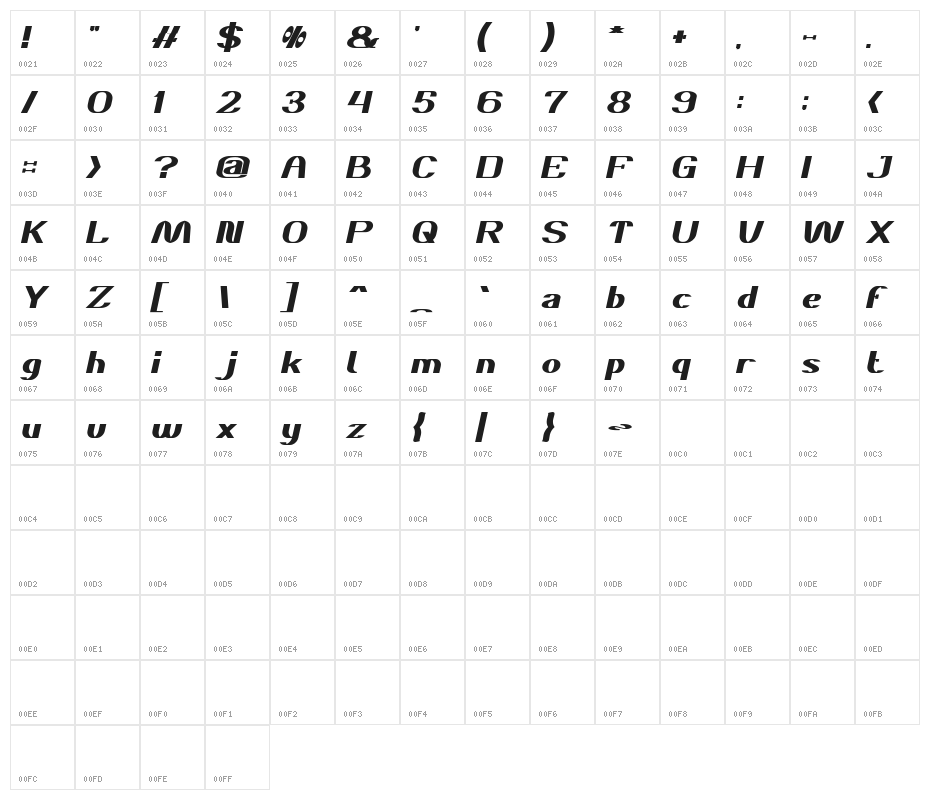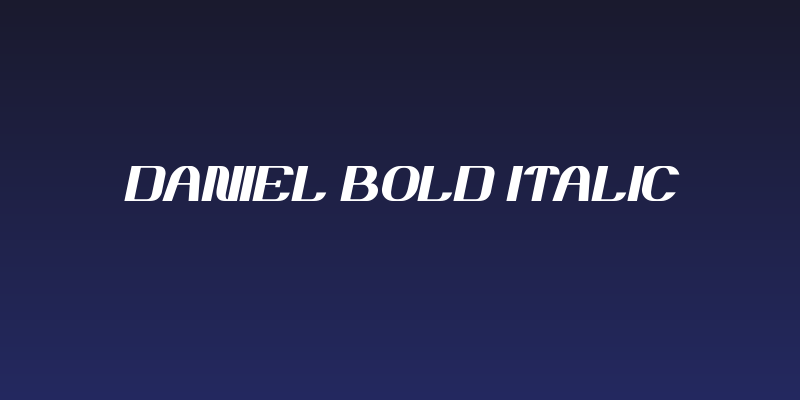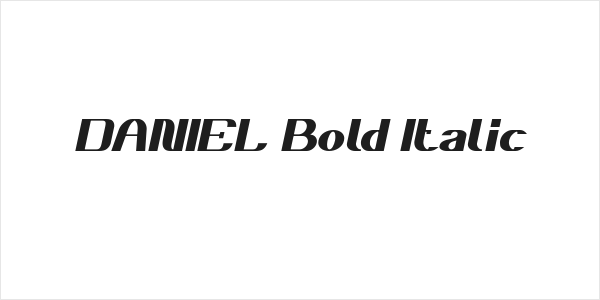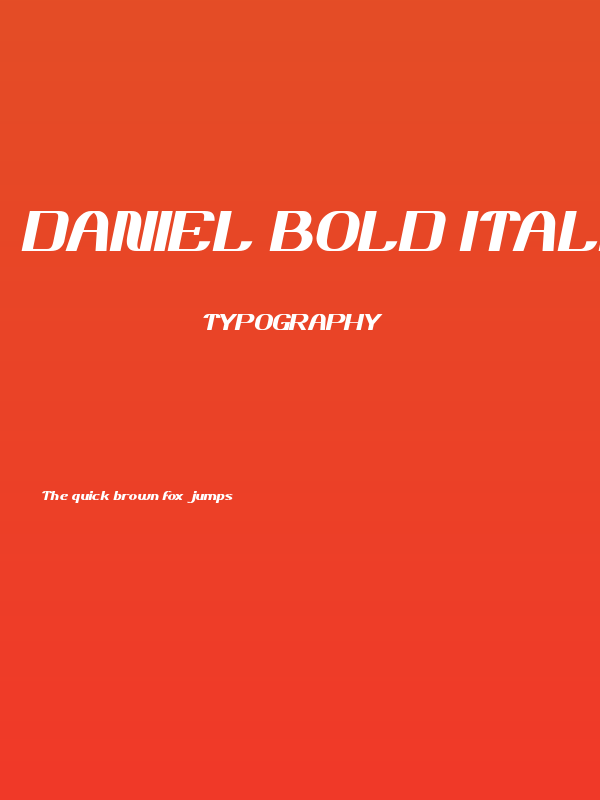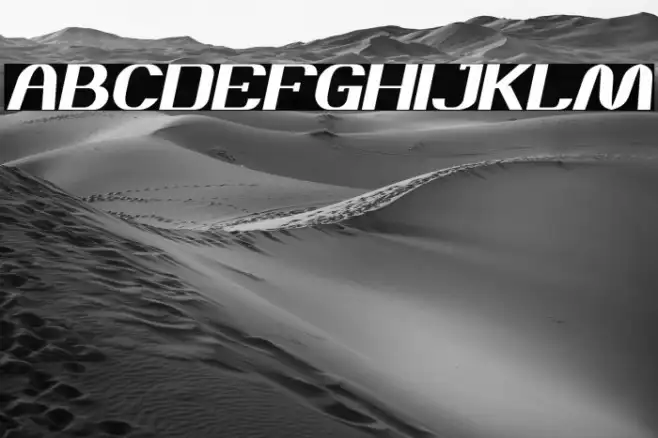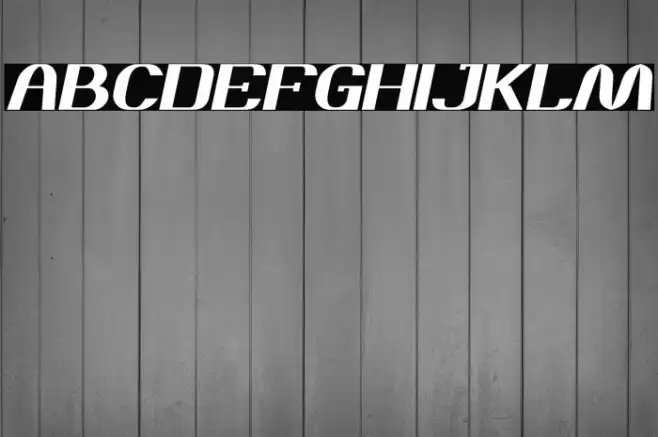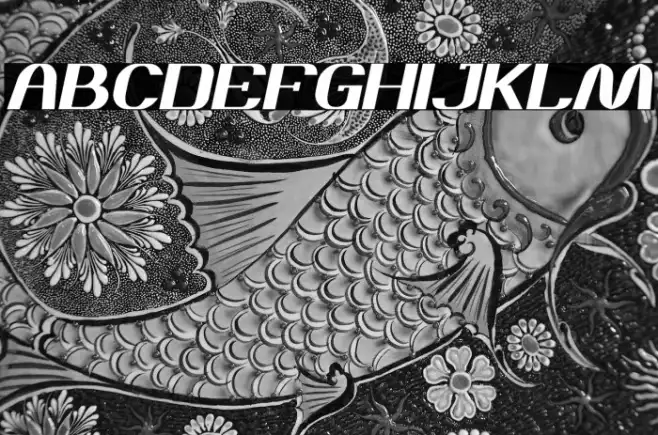
DANIEL Bold Italic Font
DANIEL Bold Italic Description
This font features a bold and italicized style, characterized by its dynamic and forward-leaning slant. The letters are robust and have a strong presence, making them ideal for attention-grabbing headlines. The strokes are thick and consistent, providing a sense of stability and confidence. The uppercase letters are slightly condensed, while the lowercase letters maintain a balanced width, ensuring readability. The numerals are equally bold, matching the overall aesthetic of the font. Special characters are designed with the same boldness, ensuring uniformity across all glyphs. This font is suitable for projects that require a modern and assertive look.